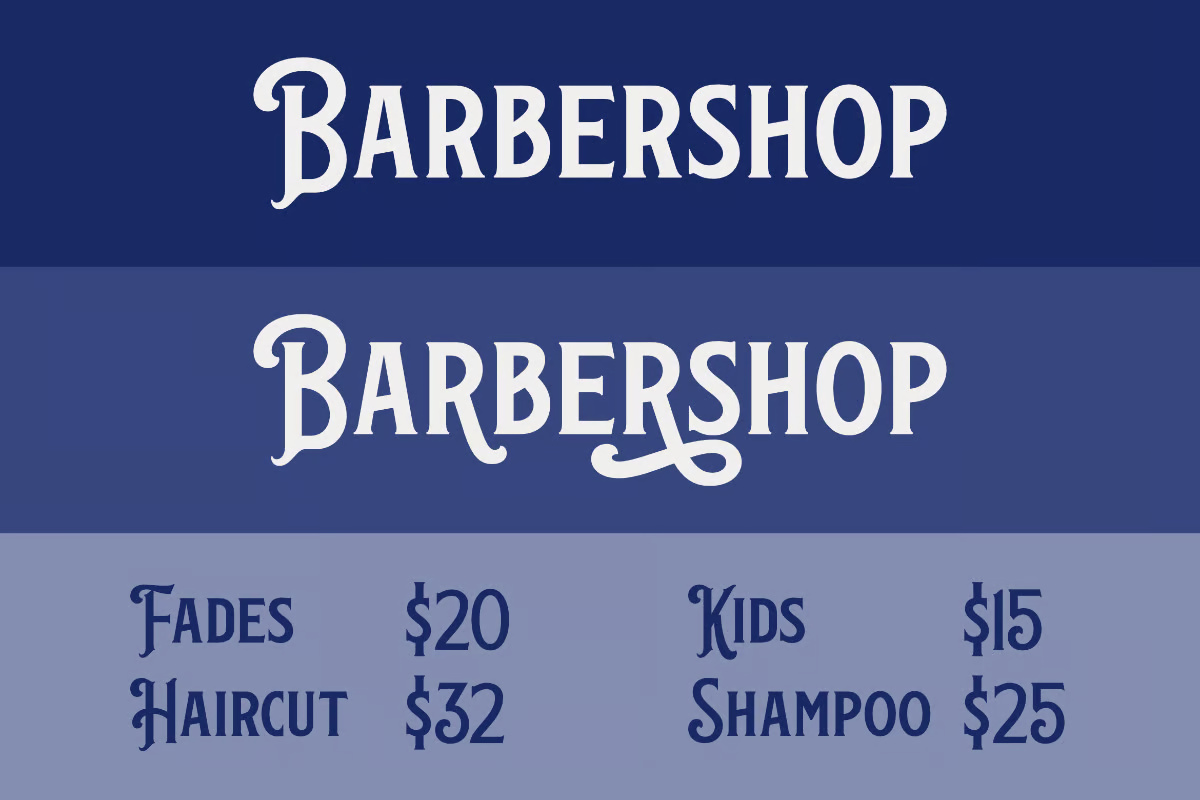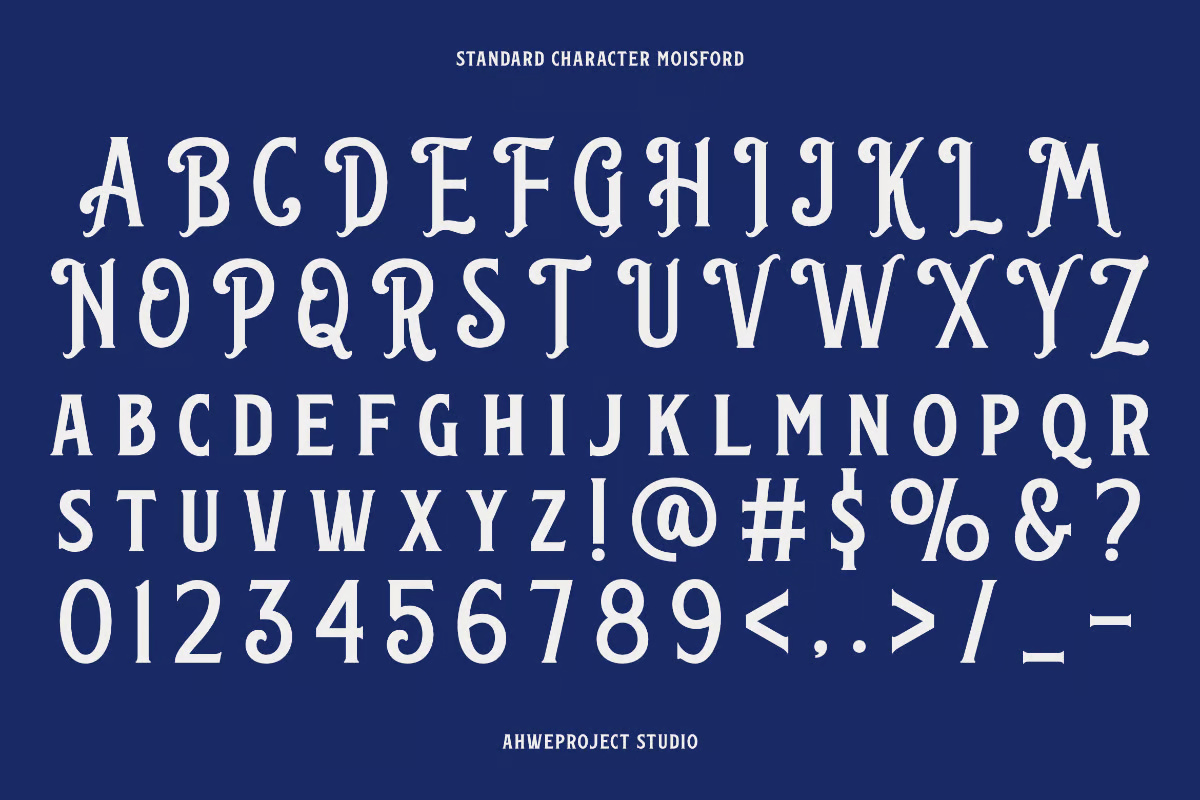
Moisford Font
Immerse yourself in the refined elegance of Moisford – a meticulously handcrafted font designed to elevate both the visual and emotional appeal of your creative projects. Every stroke is thoughtfully crafted to bring sophistication and character to your designs.
Whether you’re working on branding, creating the perfect wedding invitation, crafting a vintage masterpiece, or designing a distinctive logotype, Moisford seamlessly enhances your work with its timeless charm. No project is too big or too small—Moisford ensures that every design leaves a lasting impression.
Moisford Serif Font